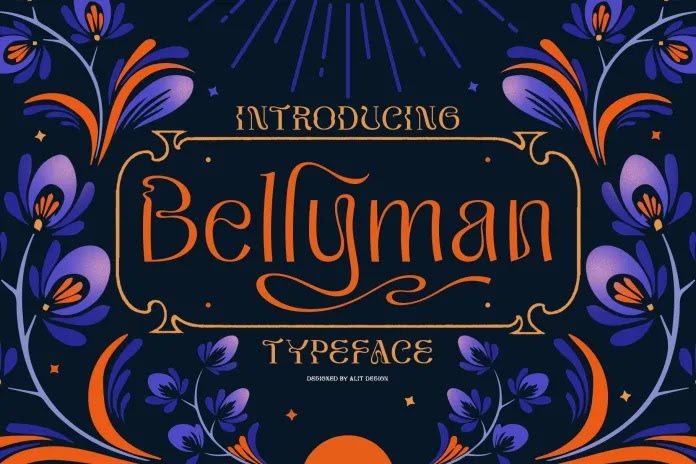
This is an aesthetic serif font that you can use for your magazine, poster, display, and more. The serif style adopted by the Bellyman font is a 2022 style font, has a unique swash alternative, has a large selection of ligatures. In addition.